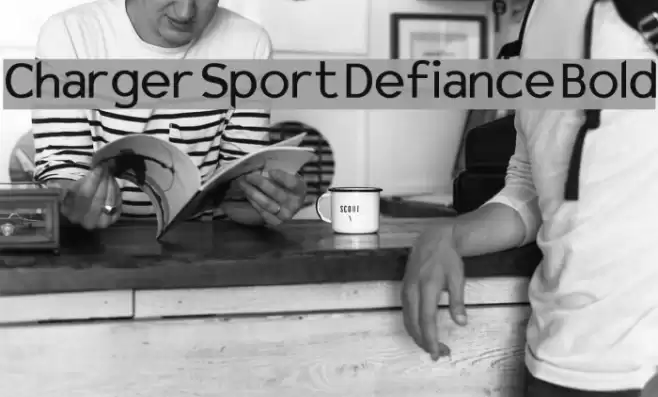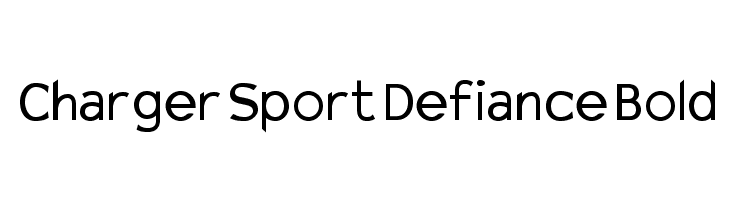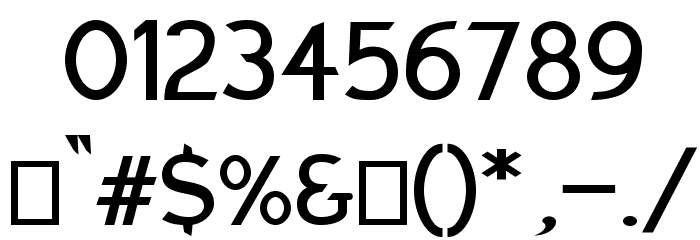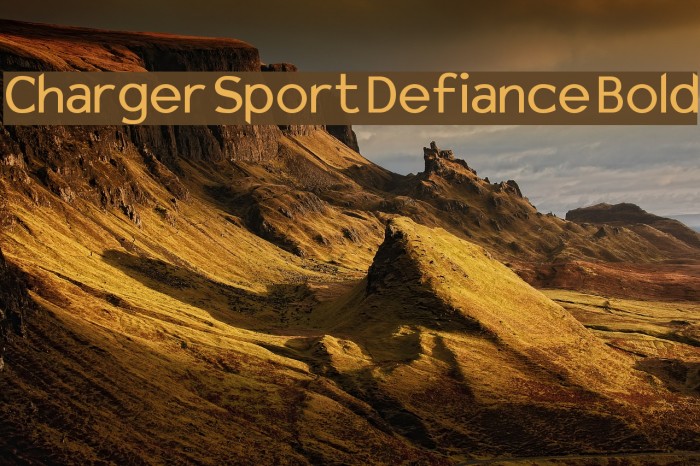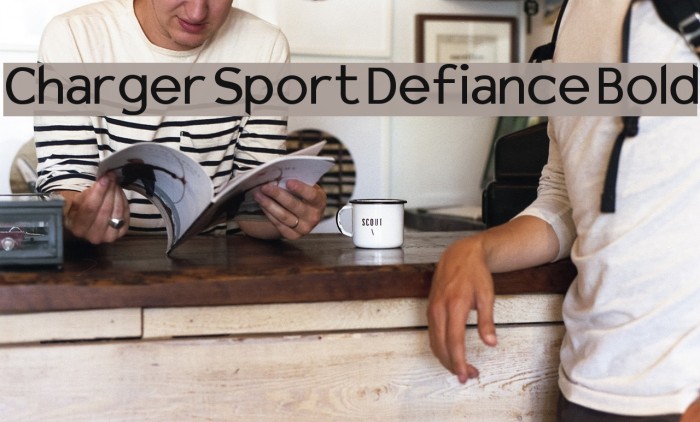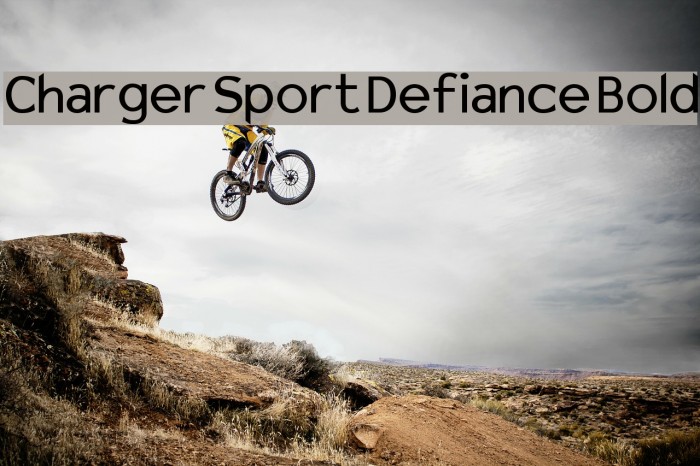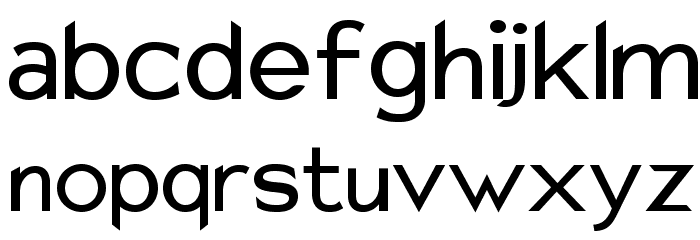
Charger Sport Defiance Bold Font
Charger Sport Defiance Bold Description
This font exhibits a bold and modern sans-serif style, characterized by clean lines and a geometric structure. The uppercase letters are uniform in height, providing a strong and cohesive appearance. The lowercase letters maintain a consistent x-height, contributing to readability and balance. The numerals are proportionate and align well with the overall design, ensuring clarity in numerical data presentation. Special characters are distinct and well-integrated, enhancing the font's versatility for various applications. The overall design is sleek and contemporary, making it suitable for a wide range of digital and print media.
A bold, modern sans-serif font with clean lines and geometric structure from Uncategorized fonts.